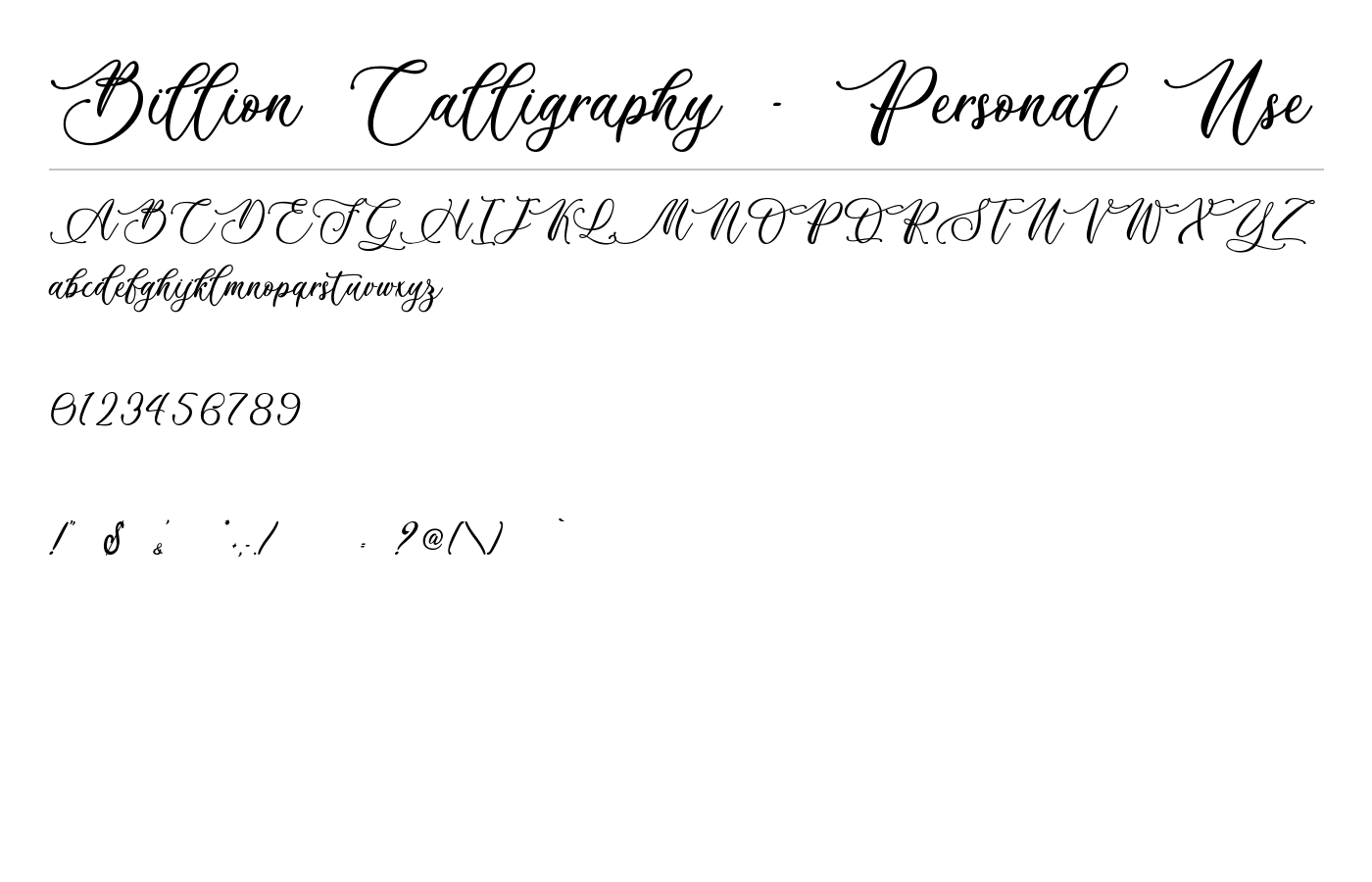
Billion Calligraphy is an elegant script font that features flowing, delicate strokes and a refined, handcrafted feel. Its thin weight and graceful swashes lend a sophisticated and personal touch, making it ideal for invitations, branding, and decorative purposes where a stylish and intimate mood is desired. This font works best in headline or display contexts, adding a sense of charm and luxury.
Billion Calligraphy - Personal Use Font
About Billion Calligraphy - Personal Use Font
| Font family | Billion Calligraphy - Personal Use Font |
| Designer | Typhoon Type - Suthi Srisopha |